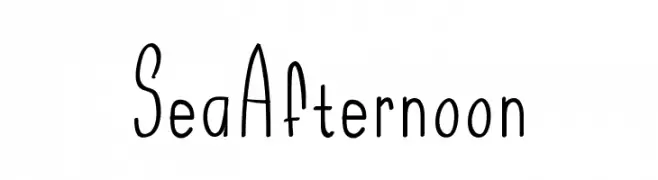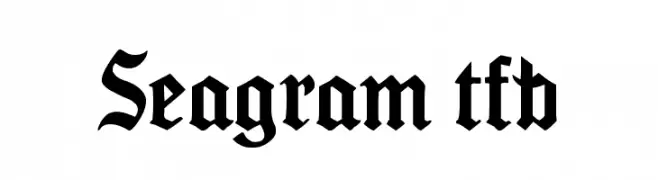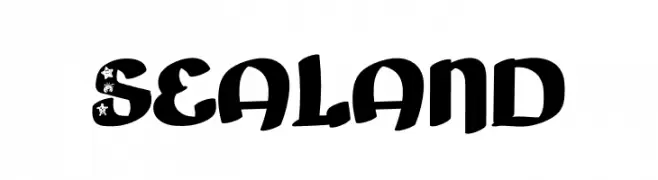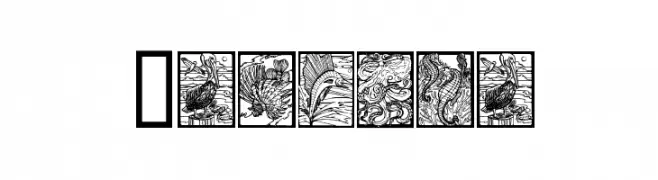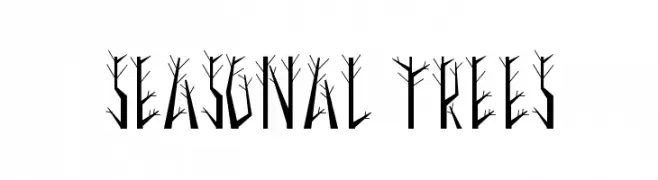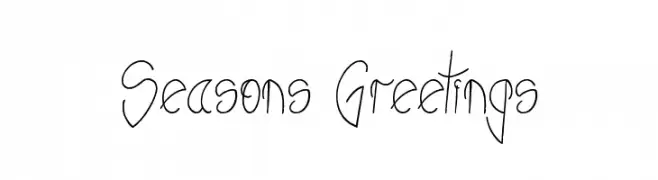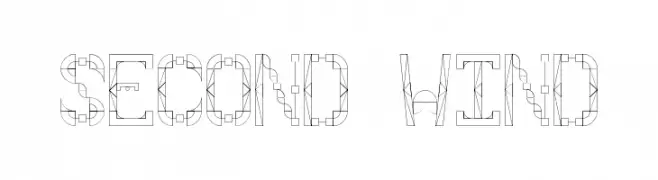
( Fonts by Raafi Hilmi )
A playful, hand-drawn font with tall, narrow letters and a whimsical style.
A bold blackletter font with a medieval, gothic style.
( Fonts by Mr.Soon Design )
A playful, decorative font with star-adorned uppercase letters and bold, rounded characters.
( Fonts by www.houseoflime.com )
Ornate illustrated font with underwater sea life motifs.
A flowing, cursive script with elegant, sweeping strokes and dramatic flourishes.
( Fonts by Janelle Remphrey )
A bold, abstract font with overlapping oval shapes, inspired by organic patterns.
( Fonts by Janelle Remphrey )
A tree-inspired font with angular, branch-like characters.
( Font by Jonathan Harris - www.tattoowoo.com )
A whimsical, flowing script font with elongated, irregular letterforms.
( Fonts by Cassie Fernandez )
A decorative font with geometric patterns and a futuristic style.